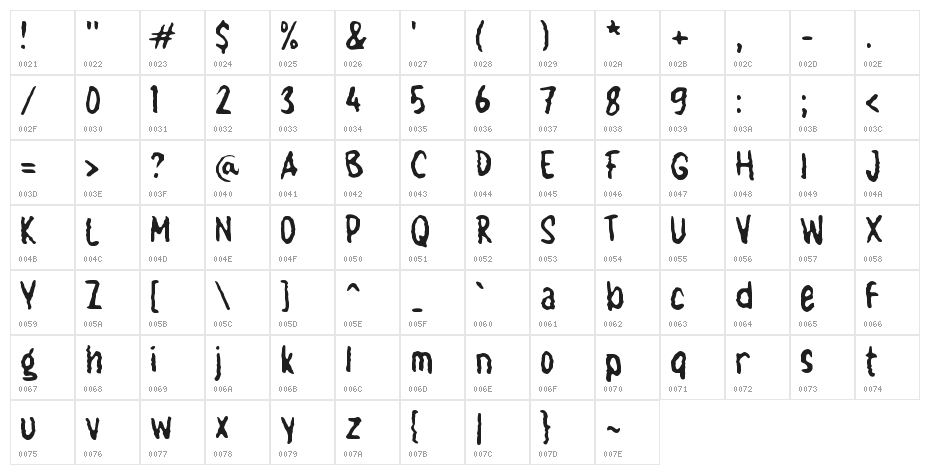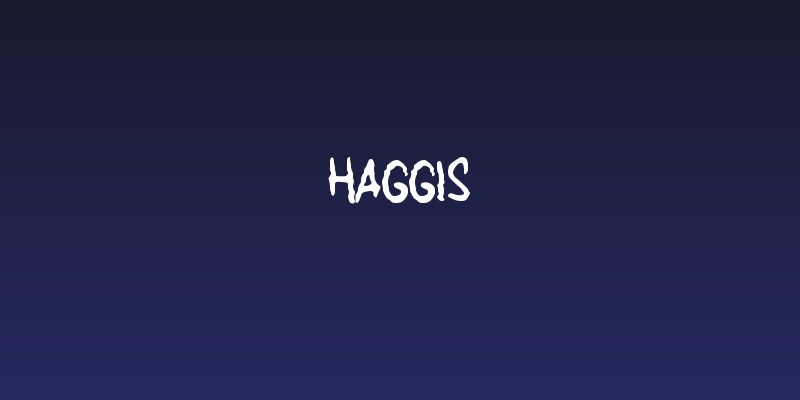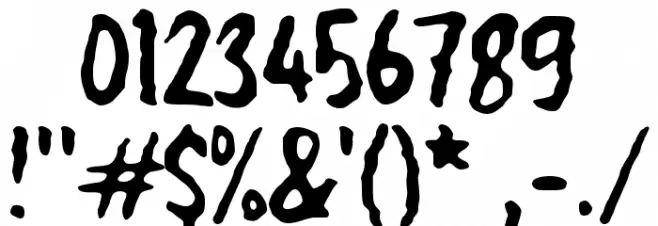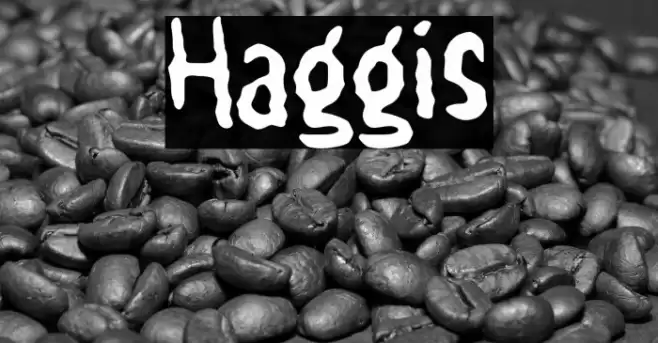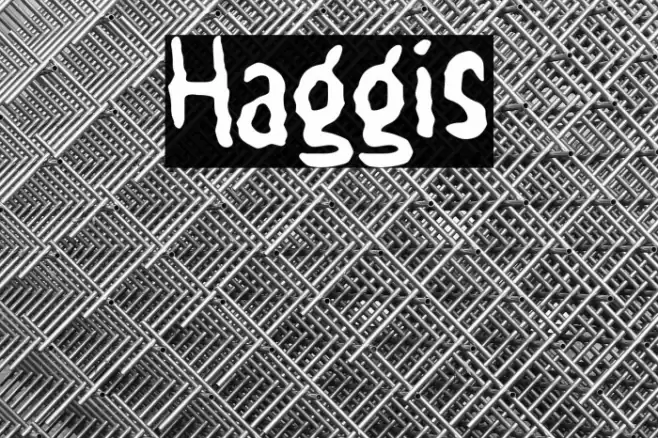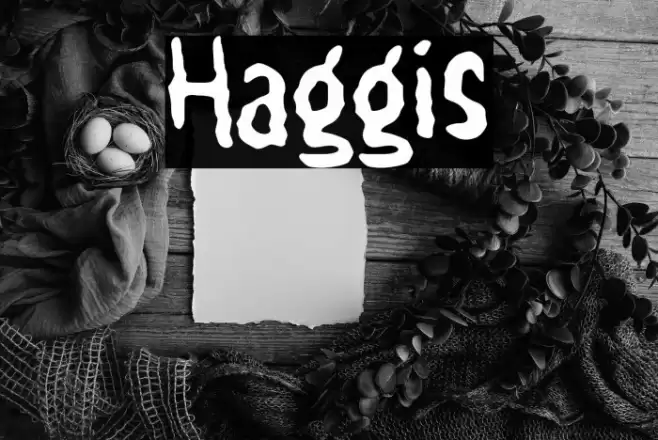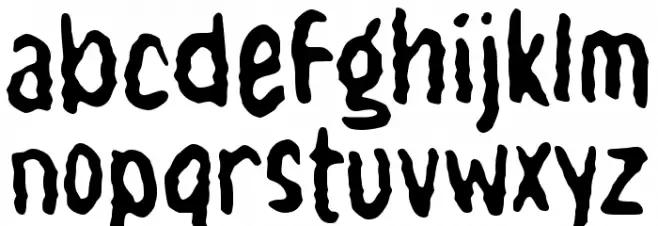
Haggis Font
Haggis Description
This font features a bold and expressive style with a hand-drawn appearance. The characters are irregular and organic, giving them a playful and artistic feel. The strokes are thick and uneven, which adds to the font's unique character. The uppercase and lowercase letters maintain a consistent style, while the numbers and special characters complement the overall design. This font's distinctive look makes it stand out, making it suitable for creative and informal projects.
HAGGIS UPPERCASE
HAGGIS LOWERCASE
HAGGIS OTHER CHARS
| Proposed Projects | Ideal for posters, children's books, artistic projects, and creative branding. |